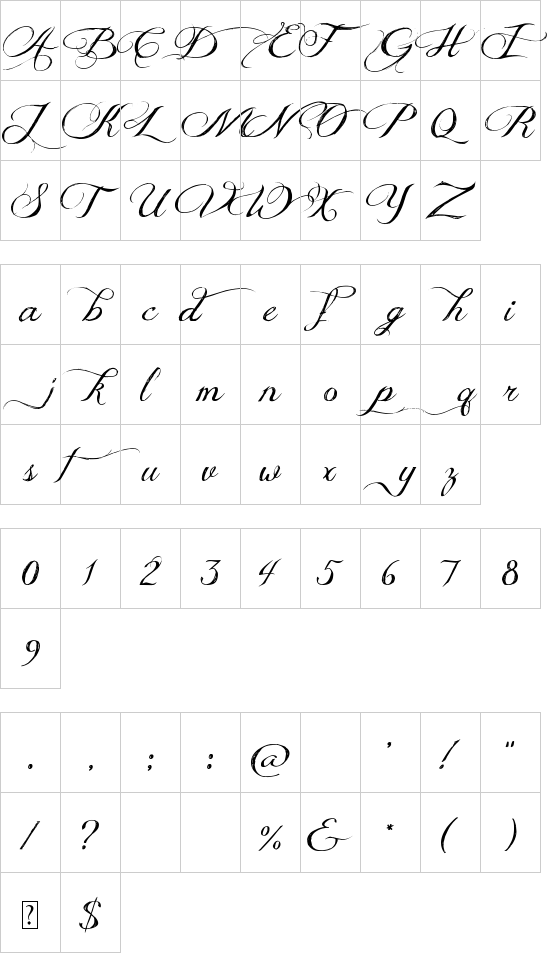
Jellyka Delicious Cake is a sweet flowing calligraphic script with playful curves and a light, graceful hand. The loops are soft and the strokes taper gently, giving the writing a charming, slightly whimsical feel that stays elegant rather than childish.